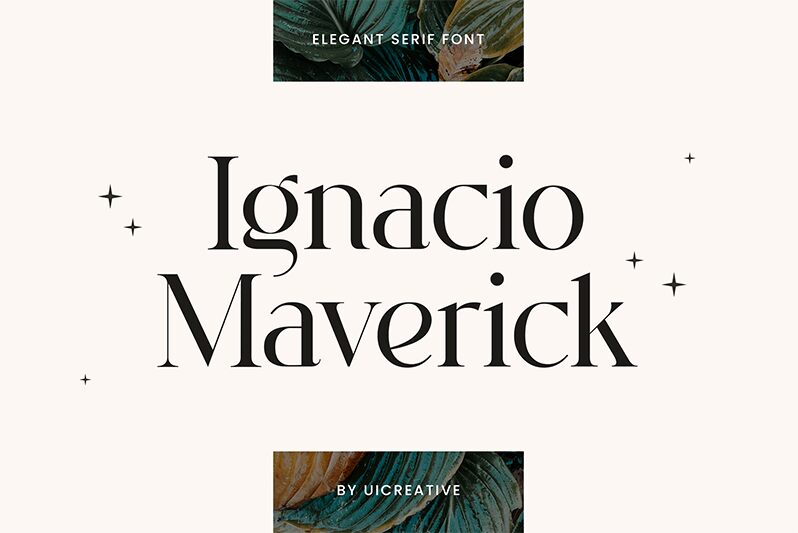
IgnacioMaverick
Ignacio Maverick, crafted by UI Creative, is a sophisticated serif font that exudes elegance and refinement. Its sleek lines and balanced proportions make it a standout choice for projects that require a touch of class. The delicate curves of the letters combined with the prominent serifs create a harmonious blend of modernity and tradition.
This font's distinctive style is perfect for high-end branding, editorial designs, invitations, and any project aiming to convey sophistication and grace. Ignacio Maverick's unique character ensures your text will command attention while maintaining an air of subtlety and elegance.